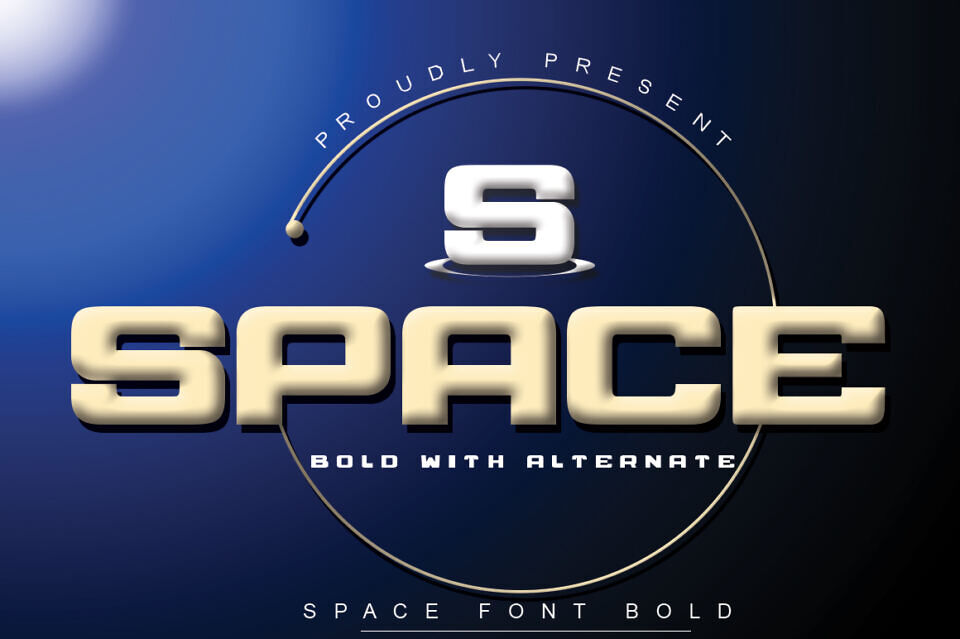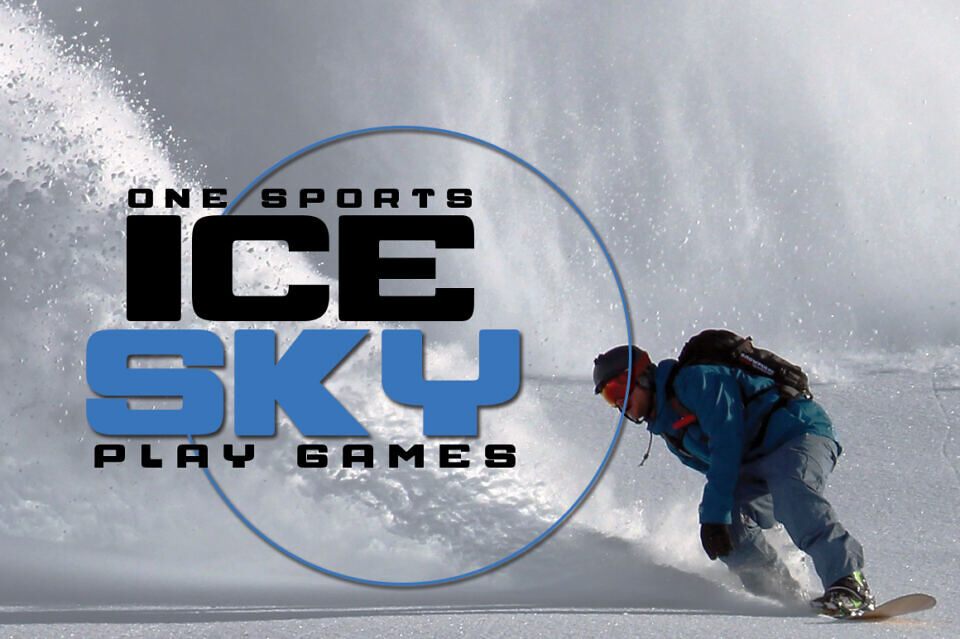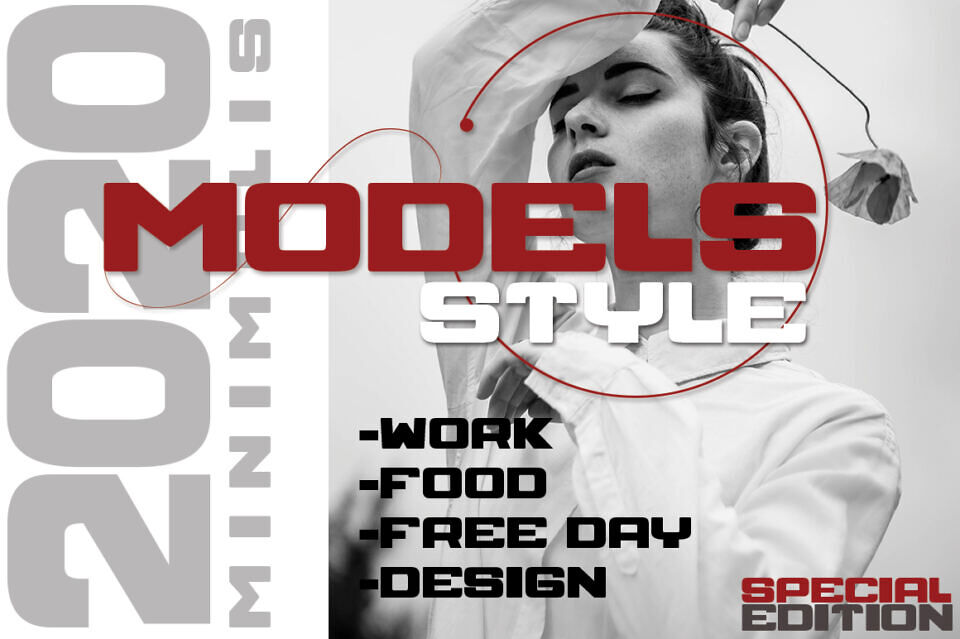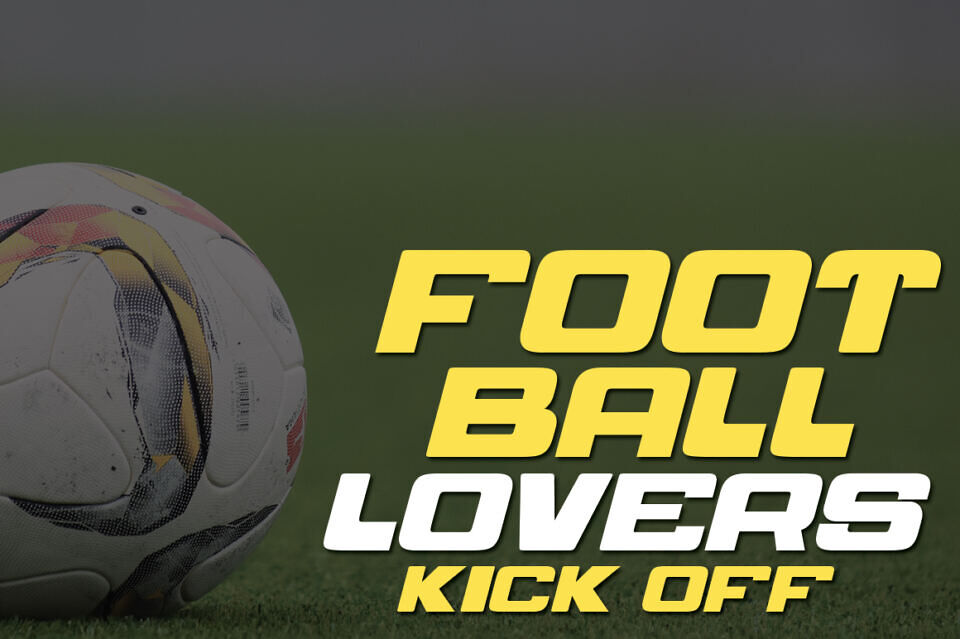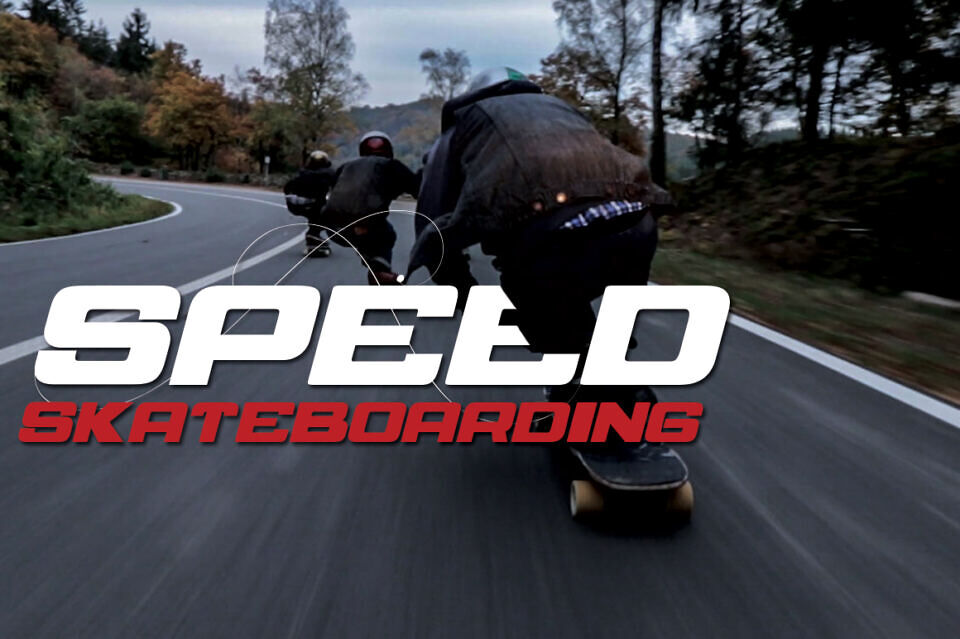
Space by Ibram Syah is a clean, modern sans-serif font with a distinct futuristic aesthetic. Its geometric structure and streamlined design evoke a sense of innovation and space-age minimalism. Perfect for tech-focused projects, sport, branding, or editorial displays, this versatile typeface offers a sleek, contemporary look that is both legible and visually striking.